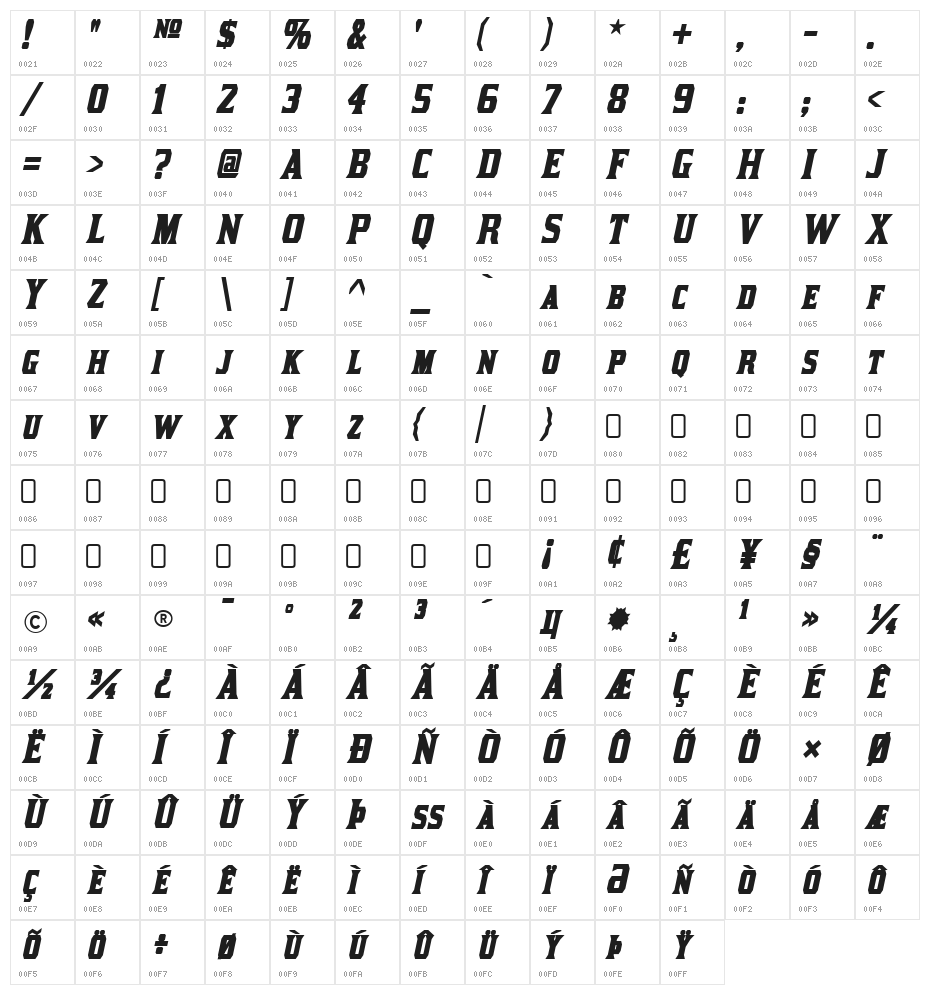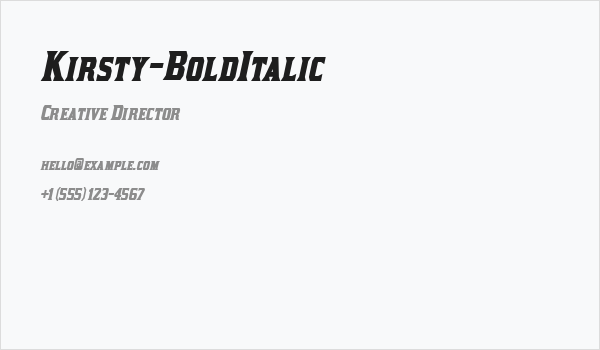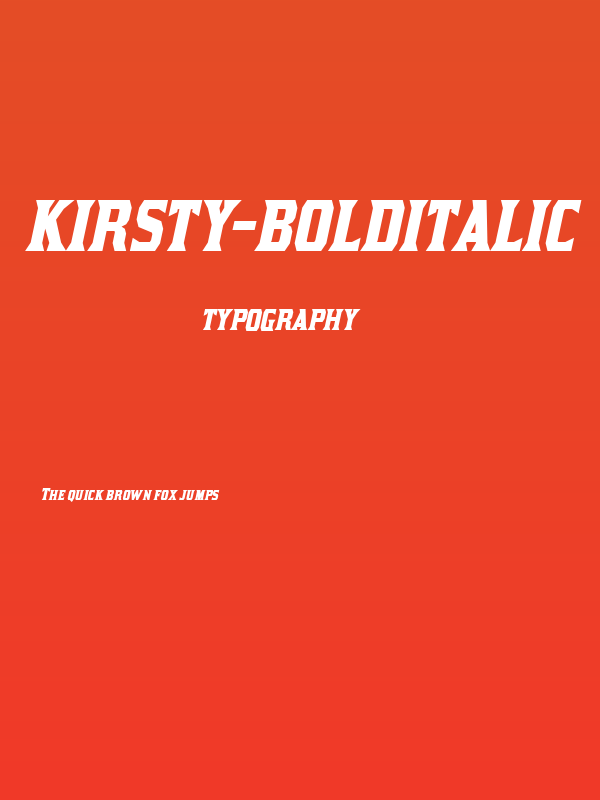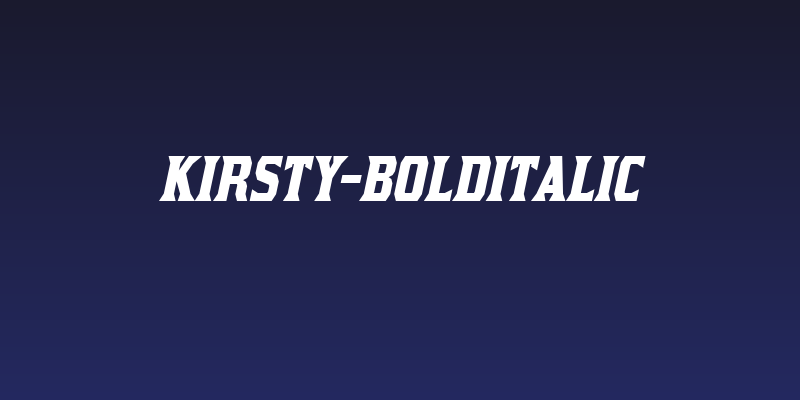
Kirsty-BoldItalic Font
Kirsty-BoldItalic Description
This font features a bold and italicized style with a strong, dynamic presence. The characters are sharply angled, giving them a sense of movement and energy. The uppercase and lowercase letters maintain a consistent slant, enhancing the italic effect. Numbers and special characters follow the same bold and angular design, ensuring uniformity across all glyphs. The font's high contrast between thick and thin strokes adds to its striking appearance, making it ideal for attention-grabbing designs.
| Proposed Projects | Ideal for sports branding, dynamic posters, and eye-catching headlines. |